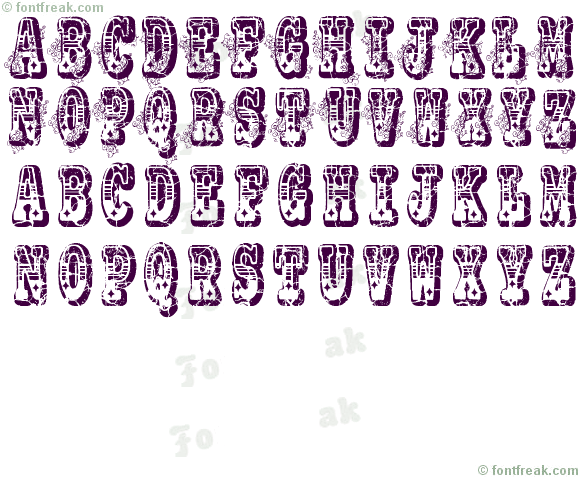
VTKS No Name
About VTKS No Name
VTKS No Name is a striking decorative font designed by Douglas Vitkauskas, categorized under display fonts. This unique typeface stands out with its bold and playful character, making it a perfect choice for designs that require a touch of whimsy and creativity. The font features a distinctive stroke weight that varies throughout, creating an engaging visual rhythm. Its spacing is thoughtfully balanced, allowing each letter to breathe while maintaining a cohesive look. The decorative elements intertwined with the letterforms add a layer of artistry, making the font visually captivating.
This font is ideal for a variety of creative applications. It shines in wedding invitations, where its playful nature can convey a sense of joy and celebration. Additionally, VTKS No Name is well-suited for movie posters, particularly for films in the comedy or family genre, as it can evoke a sense of fun and excitement. Restaurant menus can also benefit from this font, especially for establishments looking to express a quirky or artistic vibe. Furthermore, it can be effectively used in branding materials for small businesses aiming to establish a unique identity.
The target audience for VTKS No Name includes graphic designers, small business owners, and content creators who are looking to add a distinctive flair to their projects. This font allows for creative freedom and can enhance the overall aesthetic of any design.
What sets the VTKS No Name font apart is its ability to blend artistry with functionality. Its eye-catching design invites viewers to engage, making it an exceptional choice for anyone seeking to create memorable and impactful visual content. Don't miss the opportunity to elevate your design projects with this unique typeface—VTKS No Name font free download is available for those ready to explore its full potential.